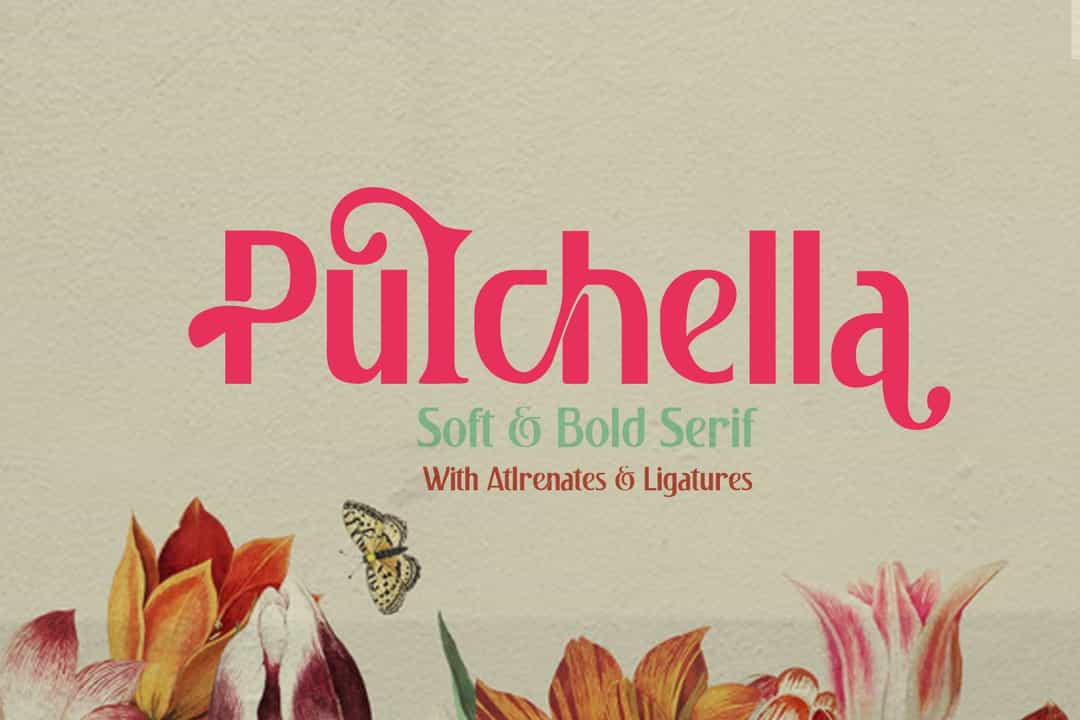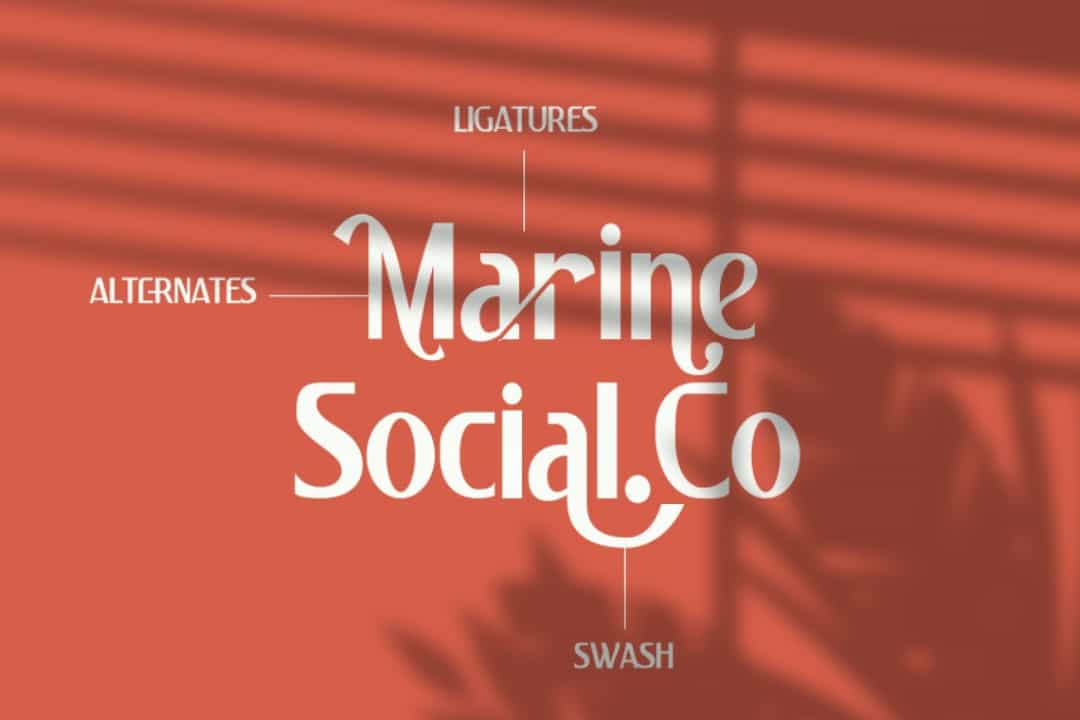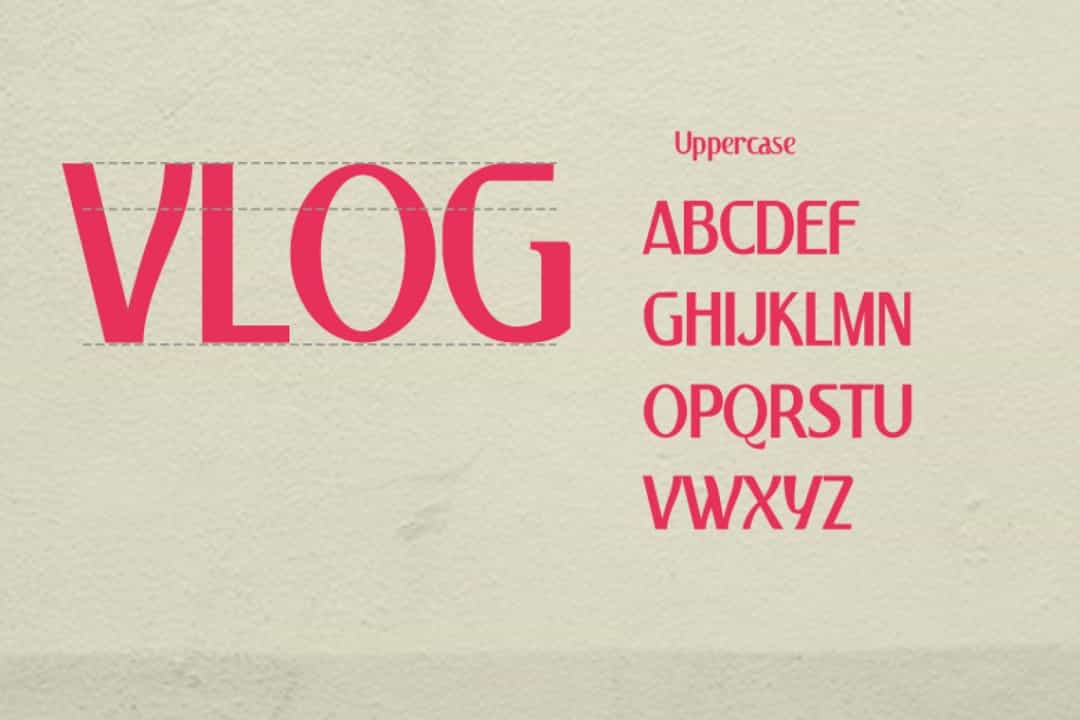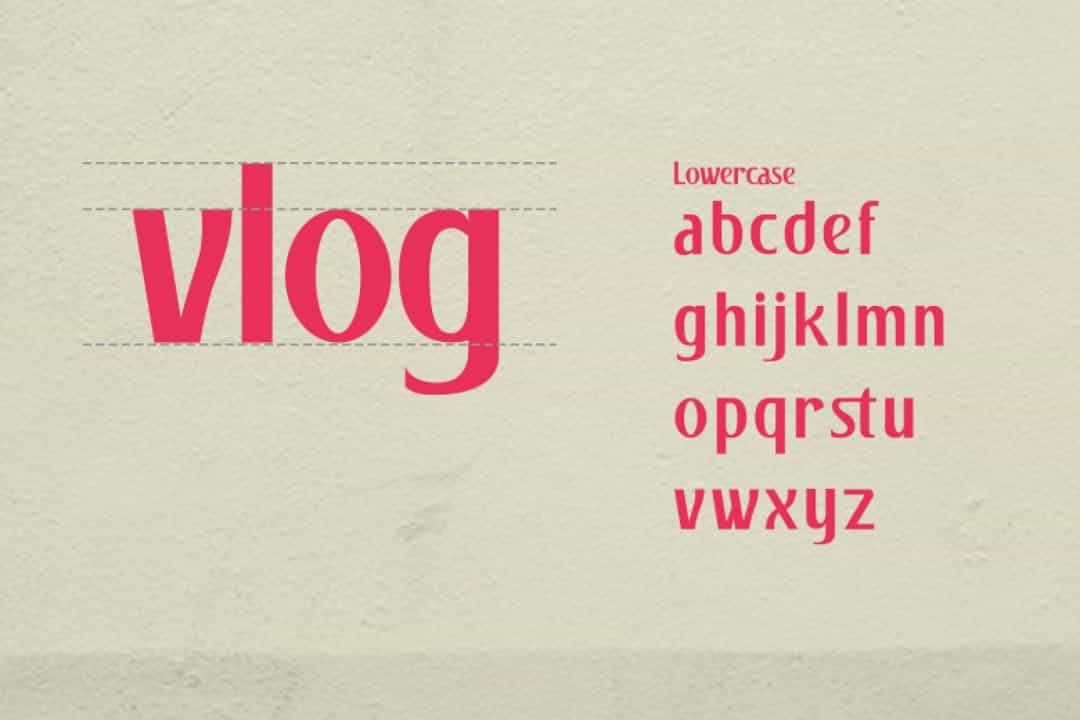
Pulchella is an editorial style The editorial sans serif typeface is elegant carefully crafted to offer an elegant feel for your projects. It contains various forms of the ligatures as well as beautiful alternatives, most important the font is very “elastic”.